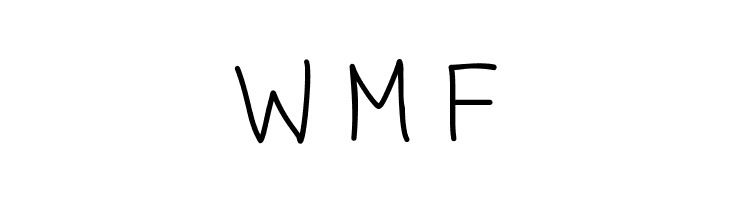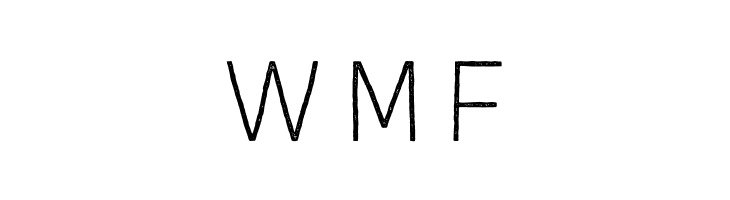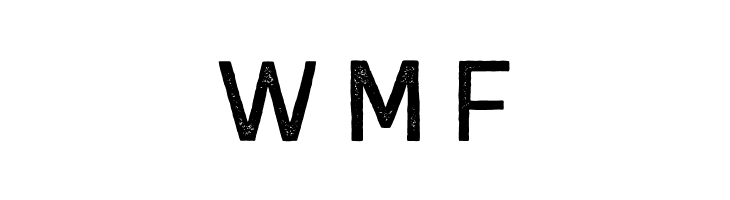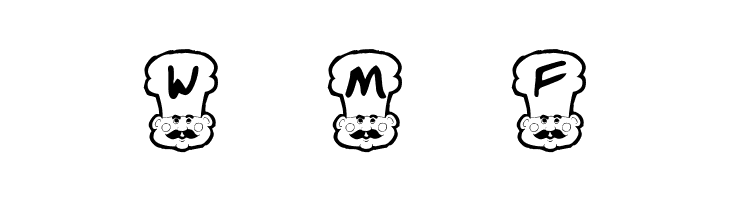
( Fonts by earl ciel )
A bold, blocky font with a playful, three-dimensional appearance.
( Fonts by Faulime )
A bold, distorted font with high contrast and dynamic style.
( Fonts by earl ciel )
A modern, dotted font with geometric and playful characteristics.
( Fonts by GUD )
An elegant script font with flowing, interconnected letters and ornate flourishes.
( Fonts by Julia Fang )
A playful, casual handwritten font with smooth, flowing lines.
( Fonts by Antipixel )
A bold, textured sans-serif font with a stamped, vintage look.
( Fonts by Antipixel )
A textured, sans-serif font with a stamped, handcrafted appearance.
( Fonts by Antipixel )
A thin, stamped sans-serif font with a handcrafted look.
( Fonts by Antipixel )
A textured, sans-serif font with a stamped, handcrafted appearance.
( Fonts by Antipixel )
A thin, modern sans-serif font with a stamped texture and minimalist design.
( Fonts by Antipixel )
A bold, distressed sans-serif font with a vintage, stamped look.
( Fonts by Uli Steinwandel )
A bold, hand-drawn font with a rough, textured style and dynamic character shapes.
A whimsical font with characters inside chef hats, perfect for playful designs.
A decorative dingbat font with kitchen-themed icons.
A whimsical font with letters inside cartoon chef hats, perfect for playful designs.
A sleek, modern, and light italic font with smooth curves and clean lines.
A modern, italic font with clean lines and a dynamic style.
A sleek, modern, thin italic font with a minimalist design.
A modern, geometric sans-serif typeface with consistent stroke weight and balanced characters.
A modern, semi-bold italic sans-serif font with medium contrast and normal spacing.
A bold, modern sans-serif font with geometric styling.
A bold, italicized font with a modern and clean aesthetic.
A modern, geometric sans-serif font with a clean and minimalistic design.
A modern, italic sans-serif font with smooth curves and uniform stroke width.
A modern, geometric typeface with a clean and versatile design.
A modern, geometric sans-serif font with a clean and minimalist design.
A bold, modern sans-serif font with strong geometric shapes and clean lines.
A modern, geometric sans-serif typeface with balanced proportions and smooth curves.
A sleek, modern font with thin, geometric lines and balanced spacing.